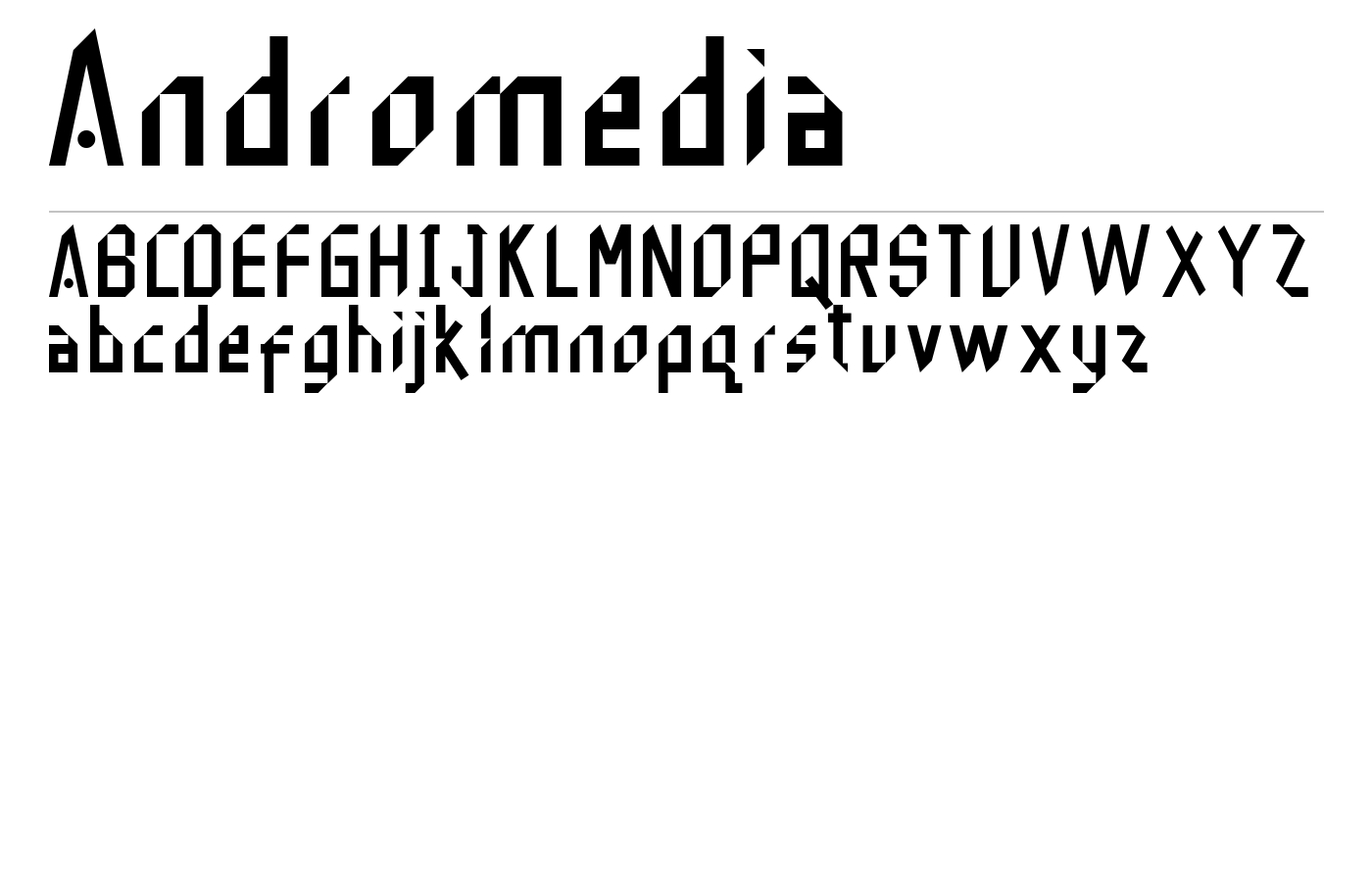
Andromedia is a bold, geometric sans serif font with a futuristic and angular design. Its sharp edges and unique letterforms give it a striking, tech-inspired personality, making it ideal for modern branding, sci-fi themed projects, and eye-catching headlines. This font works well where a strong, innovative impression is needed, such as in logos, posters, and technology-related media.
Andromedia Font
About Andromedia Font